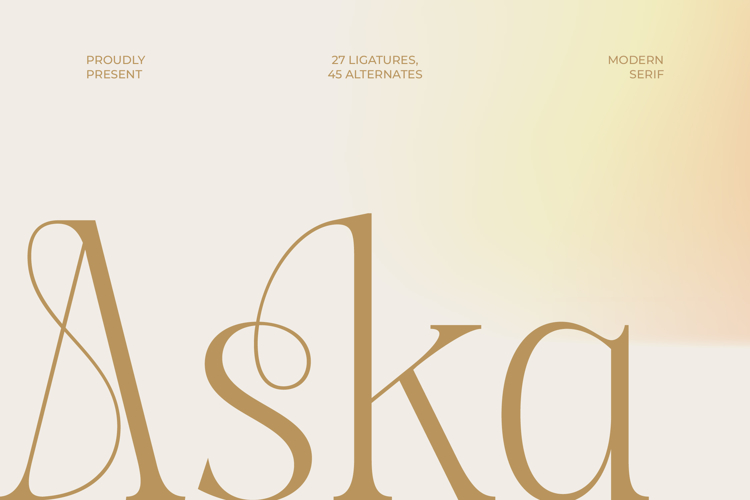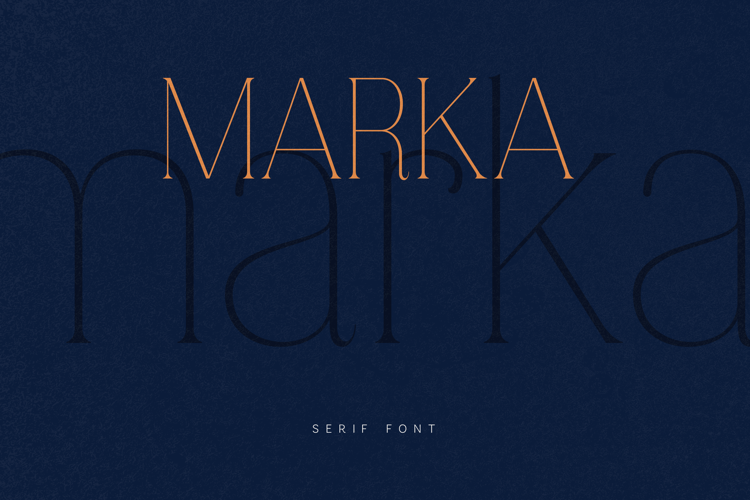
Aska - Modern Serif Font
Elevate your brand identity with unparalleled sophistication. Aska - Modern Serif Font is a meticulously crafted typeface that fuses classical elegance with contemporary design principles. Characterized by its high-contrast strokes and dramatically thin connections, this modern serif delivers immediate visual impact, perfect for establishing an aesthetic of refined luxury. It is engineered to capture attention while maintaining impeccable readability, making it an essential tool for designers seeking timeless style.
Unlock a new dimension of typographic customization. This powerful font package is equipped with an extensive suite of OpenType features, including 27 unique ligatures and 45 striking alternates. These elegant swashes and stylistic alternatives allow designers to craft truly bespoke logotypes and captivating headlines that demand focus. When you need a font that moves beyond the conventional, Aska - Modern Serif Font provides the design flexibility essential for high-end creative direction.